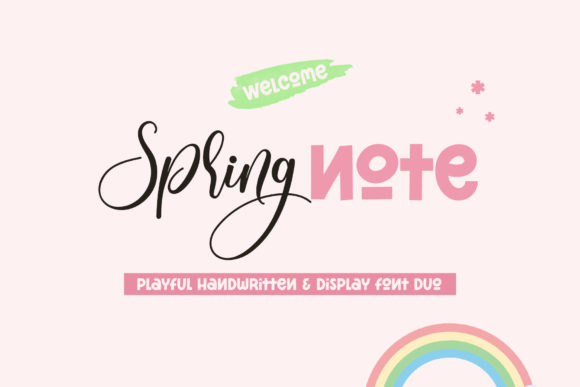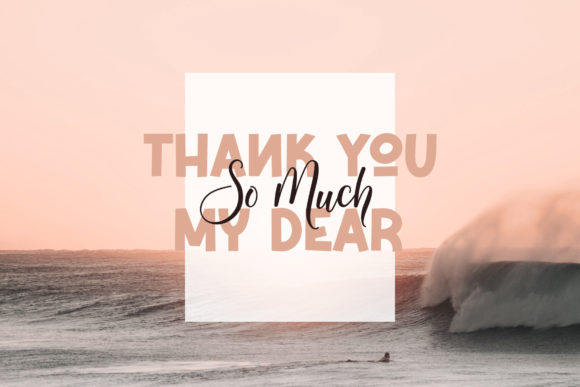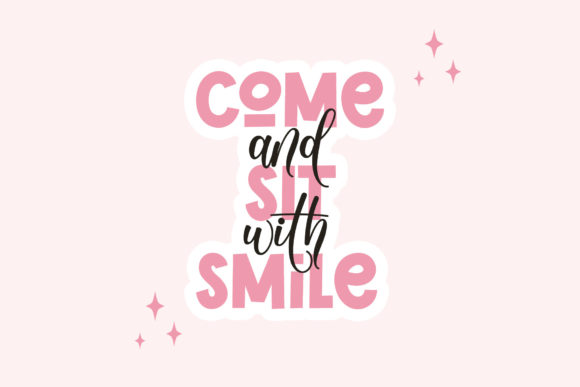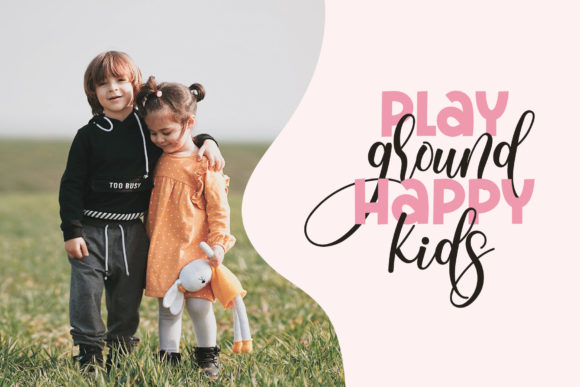
About Spring Note Font
Spring Note is simple and bouncy duo font (script and display).
Its simplicity and uniqueness made this font ideal for wide ranges of design projects.
Spring Note is the perfect font for any projects, such as wedding invitation, t-shirt design, crafting, sticker, quotes, sublimation, and many more.